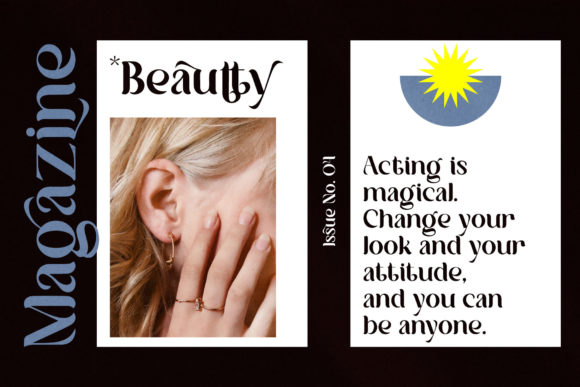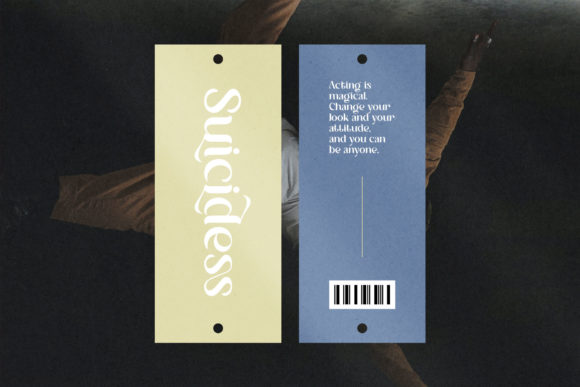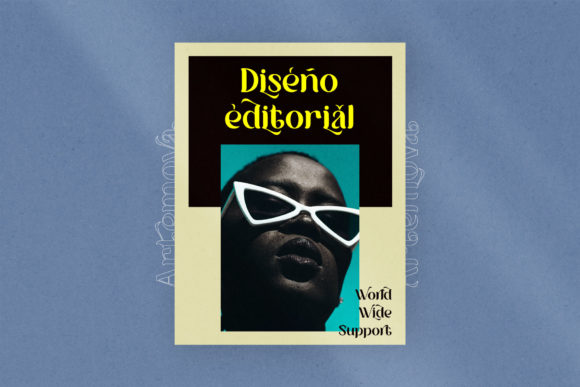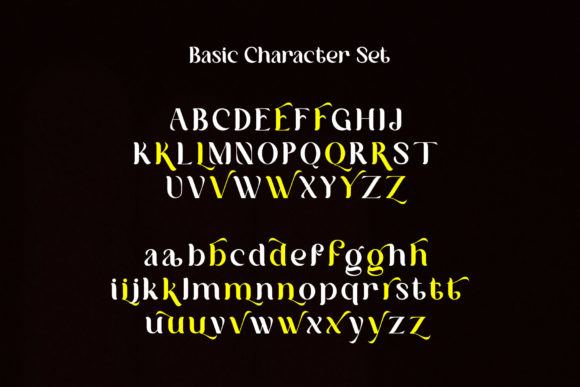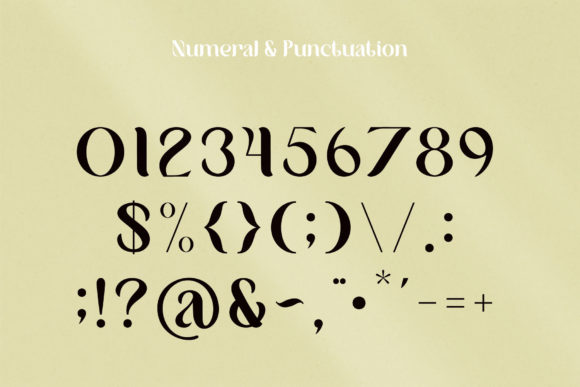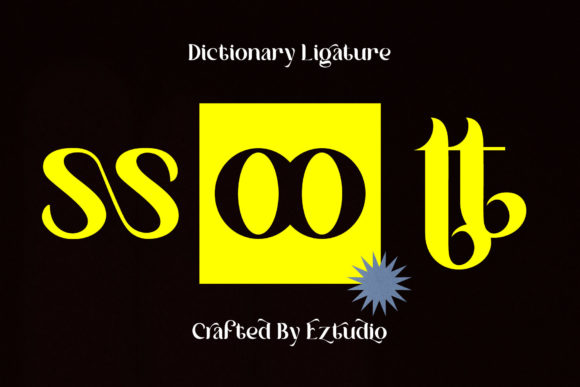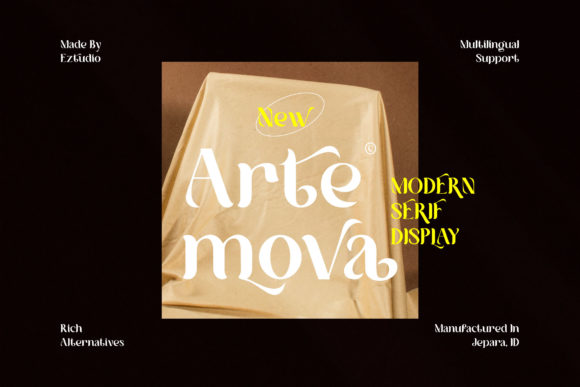
The Quest for the Perfect Font: Discovering Artemova
I still remember the countless hours I spent searching for the ideal font for a fashion branding project. My client wanted something elegant, modern, and sophisticated, but I was coming up empty-handed. That was until I stumbled upon Artemova Font. With its smooth curves and classic serif design, it was love at first sight! In this article, I’ll share my experience with Artemova, its features, and how to make the most of this beautiful font.
Artemova Font: A Modern Elegance
Artemova is a modern and elegant serif font, defined by its smooth curves and perfect for fashion branding or editorial designs. Its unique blend of classic and contemporary elements makes it an excellent choice for designers, crafters, and creative hobbyists looking to add a touch of sophistication to their projects.
Here’s what I love about Artemova:
- ✨ Elegant and sophisticated: Artemova exudes luxury and refinement, making it perfect for high-end branding and editorial designs.
- ✅ Smooth curves: The font’s smooth curves create a beautiful flow, making it easy to read and visually appealing.
- 🎨 Versatile: Artemova can be used for a wide range of projects, from fashion branding to editorial designs, and even digital media.
However, I did notice a few quirks:
- 🤔 Limited availability of certain characters: Some characters, like ligatures, are not readily available, which can be a bit limiting.
- ⚠️ Requires careful kerning: As with any serif font, kerning can be a bit tricky, especially when working with larger text sizes.
The Story Behind Artemova
Artemova was designed with the goal of creating a modern and elegant serif font that would meet the needs of designers and crafters. Inspired by classic typography and modern design trends, Artemova’s creator aimed to craft a font that would be both sophisticated and versatile.
| Font Name | Artemova Font |
| Author | eztudio |
| What is Artemova Font best suited for? | Artemova Font is perfect for fashion branding, editorial designs, and any project that requires a touch of elegance and sophistication. |
| Is Artemova Font suitable for digital media? | Yes, Artemova Font can be used for digital media, such as websites, social media, and email marketing campaigns. |
| Is Artemova Font easy to read? | Yes, Artemova Font is designed to be easy to read, with smooth curves and clear letterforms. |